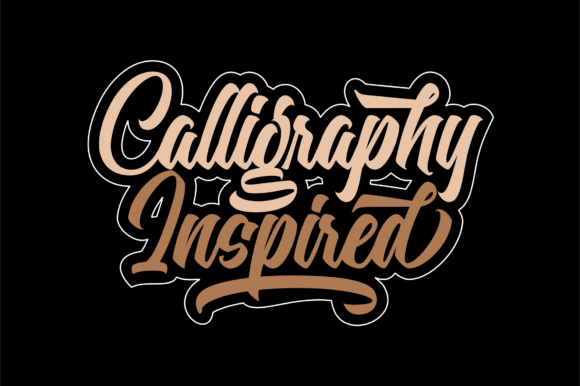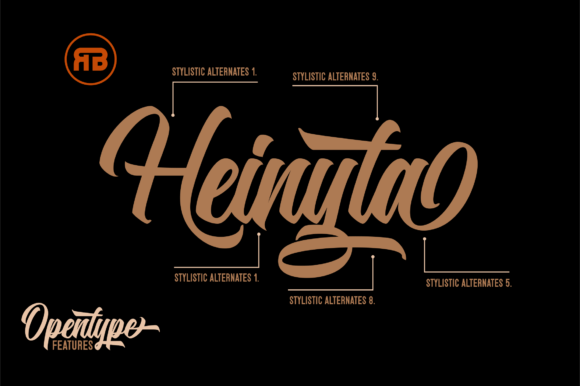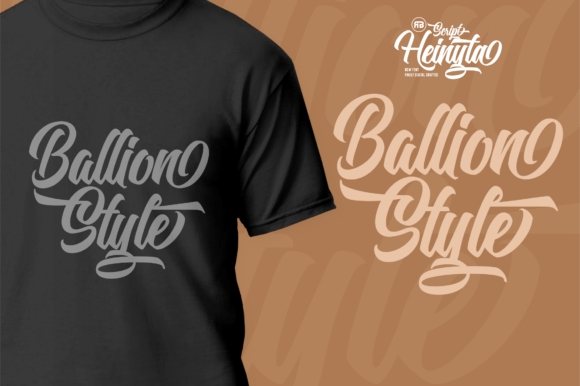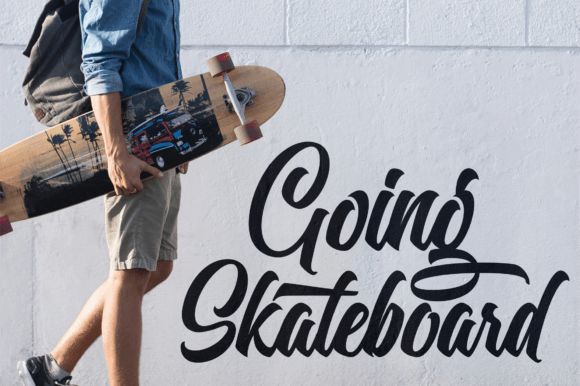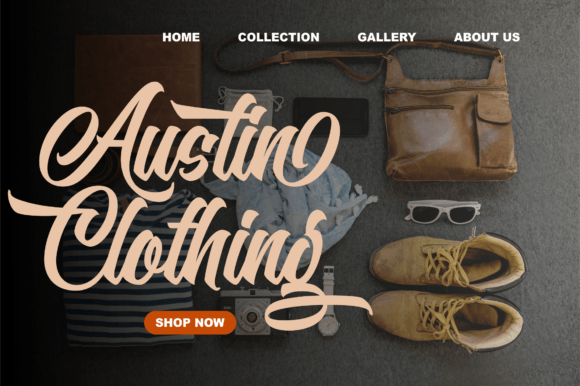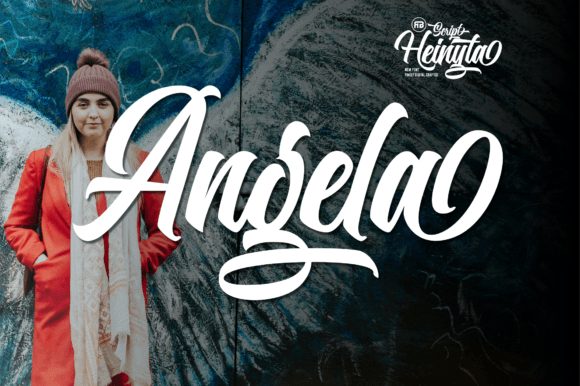
Introducing Heinyta Font: The Cool and Modern Handwritten Font You Need
In the world of design, a font can make all the difference. Whether you’re a professional designer, crafter, or simply someone who loves to create, having the right font can elevate your project from ordinary to extraordinary. That’s where Heinyta Font comes in – a cool and modern handwritten font that’s perfect for a variety of creative endeavors.
What Makes Heinyta Font So Special?
Heinyta Font is a standout in the world of typography, boasting a unique blend of trendiness and elegance. Its modern handwritten style is perfect for crafting, digital designing, presentations, greeting card making, and so much more. The font’s versatility knows no bounds, making it an excellent addition to any designer’s or crafter’s toolkit.
Key Features of Heinyta Font
- PUA Encoded: Heinyta Font is PUA (Private Use Area) encoded, which means you can access all the glyphs and swashes with ease. This feature makes it incredibly user-friendly, allowing you to focus on your creative project rather than getting bogged down in complicated font mechanics.
- Trendiness and Elegance: Heinyta Font strikes the perfect balance between trendiness and elegance. Its modern handwritten style is sure to make your projects stand out, whether you’re creating something for personal use or for a client.
- Versatility: From crafting and digital designing to presentations and greeting card making, Heinyta Font is the perfect choice for a wide range of creative projects.
Why Designers and Crafters Love Heinyta Font
Designers and crafters alike are drawn to Heinyta Font for its unique combination of style and functionality. Here are just a few reasons why:
- Easy to Use: With its PUA encoding, Heinyta Font is incredibly easy to use, even for those who are new to font design.
- Highly Customizable: The font’s glyphs and swashes can be easily accessed and customized to fit your project’s specific needs.
- Unique Style: Heinyta Font’s modern handwritten style is truly one-of-a-kind, allowing you to add a touch of personality to your projects.
How to Use Heinyta Font in Your Projects
Using Heinyta Font in your projects is easy. Here are a few tips to get you started:
- Crafting: Add a personal touch to your crafting projects, such as scrapbooking, card making, and journaling, with Heinyta Font’s modern handwritten style.
- Digital Designing: Use Heinyta Font in your digital designs, such as social media graphics, blog posts, and website headers, to add a touch of elegance and sophistication.
- Presentations: Elevate your presentations with Heinyta Font’s unique style, making them more engaging and memorable.
- Greeting Card Making: Create beautiful, one-of-a-kind greeting cards with Heinyta Font, perfect for special occasions.
In conclusion, Heinyta Font is a cool and modern handwritten font that’s perfect for designers, crafters, and anyone who loves to create. Its unique blend of trendiness and elegance, combined with its ease of use and versatility, make it an excellent addition to any creative project. Whether you’re working on a crafting project, digital design, presentation, or greeting card, Heinyta Font is sure to elevate your work to the next level.